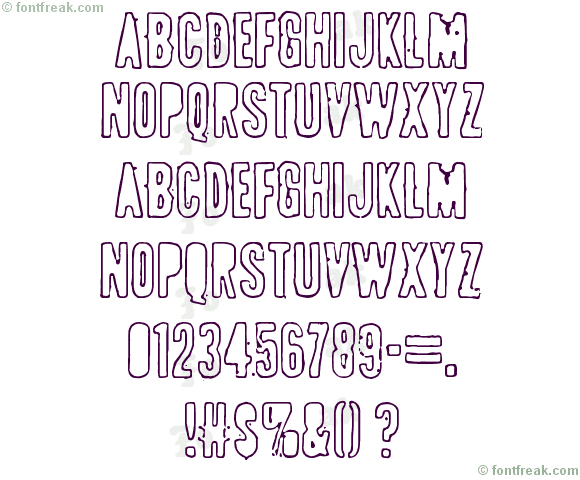
About Pollux
Pollux is a captivating display font designed by Junkohanhero, available for free download under a freeware license. This font belongs to the display category, making it a perfect choice for projects that require a bold and eye-catching typographic style. Its visual characteristics include a unique, rounded letterform with a playful stroke weight that creates a sense of warmth and friendliness. The contrast between the thick and thin strokes adds an engaging dynamism, while the ample spacing between the letters ensures readability even at larger sizes.
Pollux is particularly suited for a variety of creative applications. Graphic designers will find it ideal for crafting vibrant movie posters that demand attention, while small business owners can use it to create eye-catching restaurant menus that convey a fun and inviting atmosphere. Additionally, content creators may opt for Pollux in promotional materials or social media graphics where a distinctive and memorable typeface can set their brand apart. Wedding planners may also utilize this font to design whimsical invitations that reflect a modern yet playful aesthetic.
The target audience for Pollux includes graphic designers looking for unique typefaces, small business owners seeking to enhance their branding, and content creators aiming to capture the attention of their audience. Its versatility and bold presence make it a valuable asset for anyone in need of impactful typography.
What sets Pollux apart is its ability to combine playfulness with readability, making it a standout choice for diverse projects. The font's distinctive style ensures that it leaves a lasting impression, whether on a poster or a menu. For those seeking a fresh, creative twist in their designs, the Pollux font free download is an opportunity not to be missed.